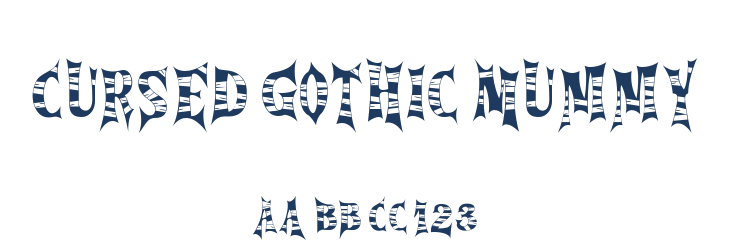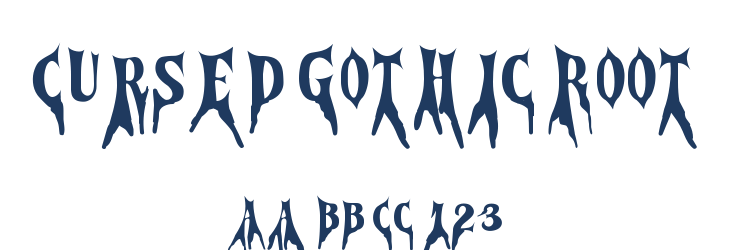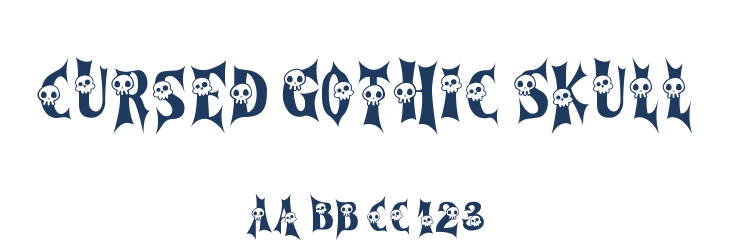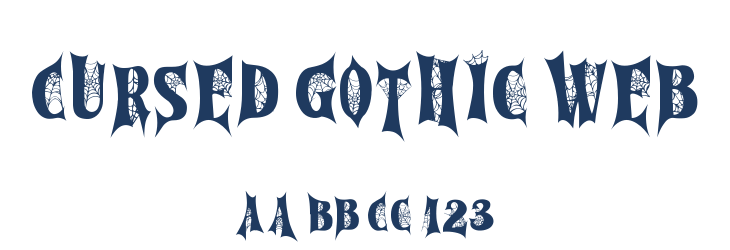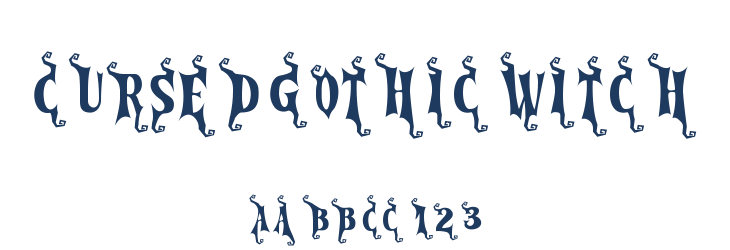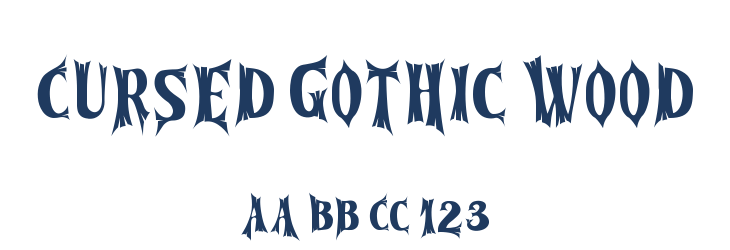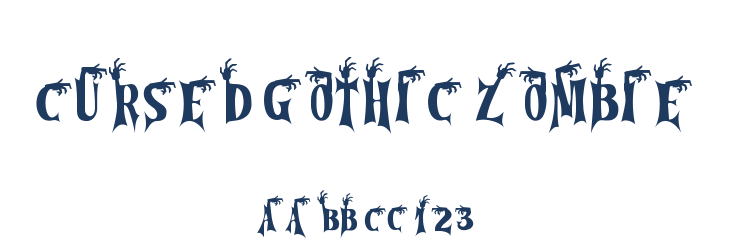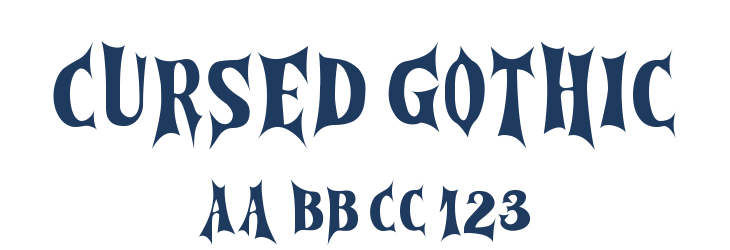
Cursed Mustache Font
A bold, distressed font with a rugged, grunge-like appearance.
CursedKuerbis Font
A bold, jagged font with an eerie, hand-carved appearance.
Cursed Law Font
A bold, rugged font with jagged edges and a distressed, grungy style.
Cursed Law Shadow Font
A bold, shadowed font with a playful, cartoonish style.
Cursed Stone Personal Use Font
A bold, distressed font with a rough, textured appearance for a vintage feel.
Super Cursed Font
Bold, distressed display font with rough, textured edges.
Cursed Gothic Devil Font
A bold, gothic display font with devilish horns and tails.
Cursed Gothic Font
A bold, spiky gothic display font with dramatic, pointed forms.
Cursed Gothic Mummy Font
A bold, bandaged decorative font with a spooky, Halloween vibe.
Cursed Gothic Web Font
A bold, gothic display font with spiderweb embellishments and sharp, dramatic forms.
Cursed Gothic Wood Font
A bold, jagged, woodcut-style decorative display font with gothic influences.
Cursed Gothic Witch Font
A quirky, gothic display font with twisted, whimsical serifs.
Cursed Gothic Drop Font
A bold, dripping decorative font with gothic and horror vibes.
Cursed Gothic Root Font
A bold, jagged, root-inspired decorative font with a gothic, eerie feel.
Cursed Gothic Zombie Font